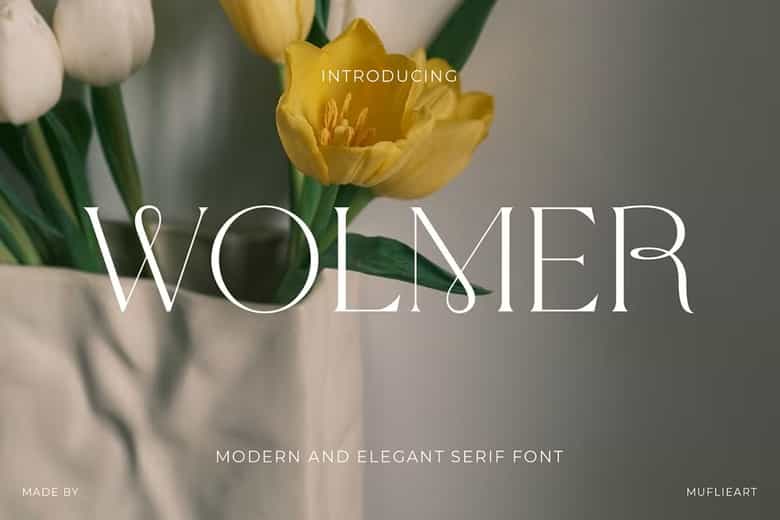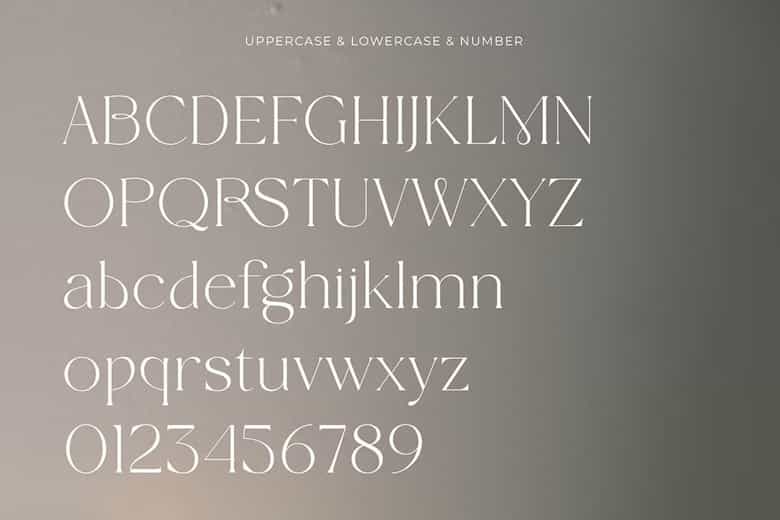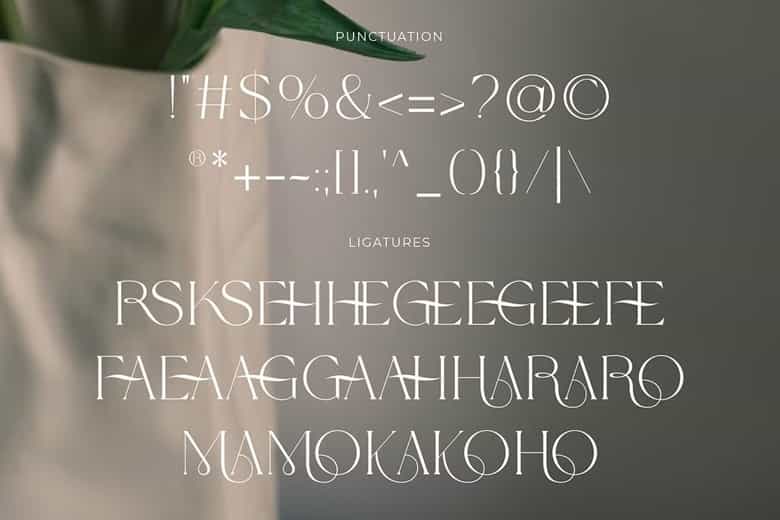
Discover Wolmer Font, part of the Serif collection—a versatile and unique font perfect for adding a personal touch to your projects. Download it for free and enjoy crafting designs with style, from invitations to social media posts. This font is available exclusively for personal use, giving you the freedom to create without limits. Unlock your creativity with Wolmer Font today!
Wolmer is a modern brand-new and elegant serif font that is ideal for contemporary projects such as: websites, logos of modern and minimalistic style, brand identities, quotes in social networks, invitations for a wedding, and especially for magazines.